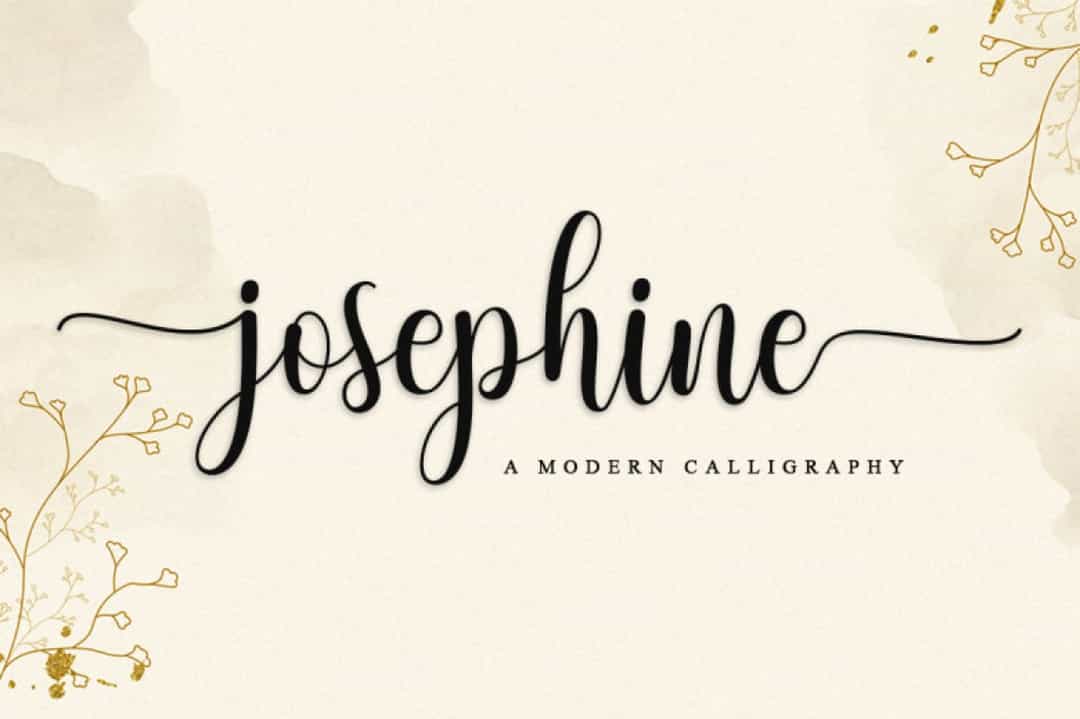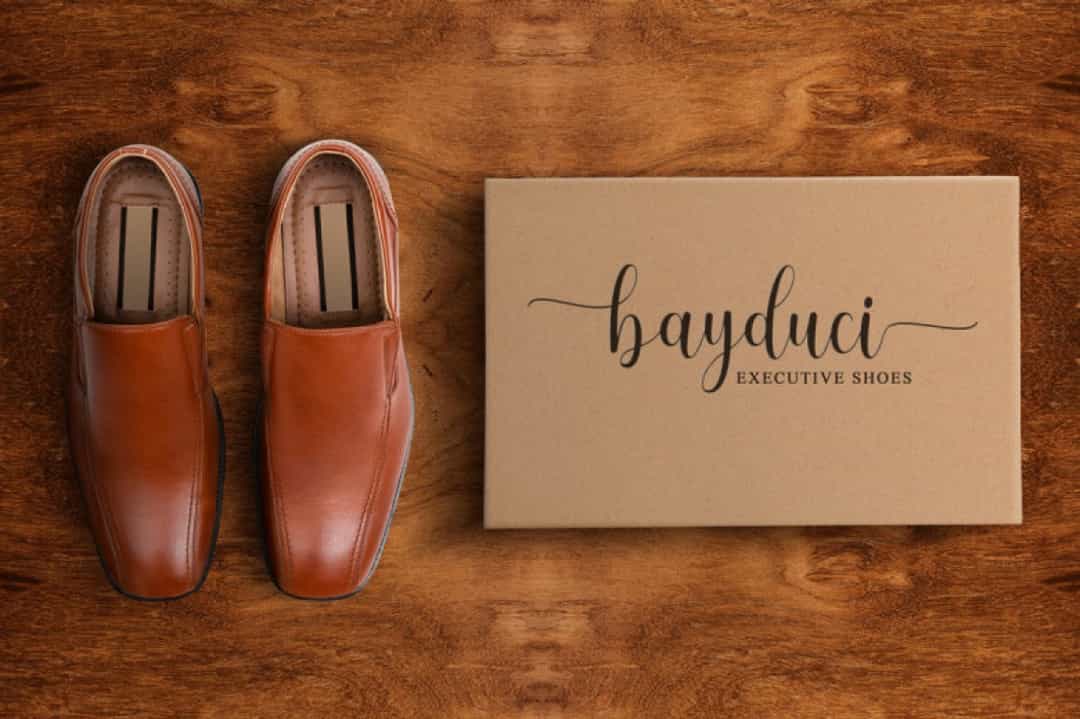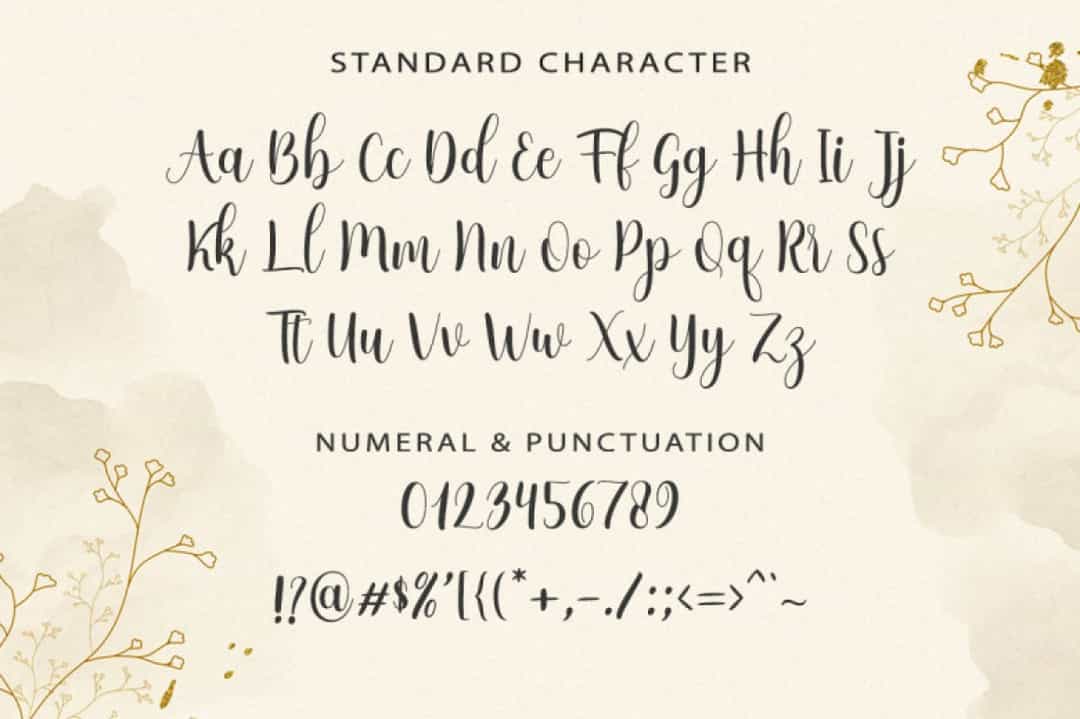
Josephine Font is an elegant calligraphic script font designed for calligraphers. Josephine can be used across a range of applications including greeting cards and headlines; its PUA code means it accesses every glyph and swash with ease!